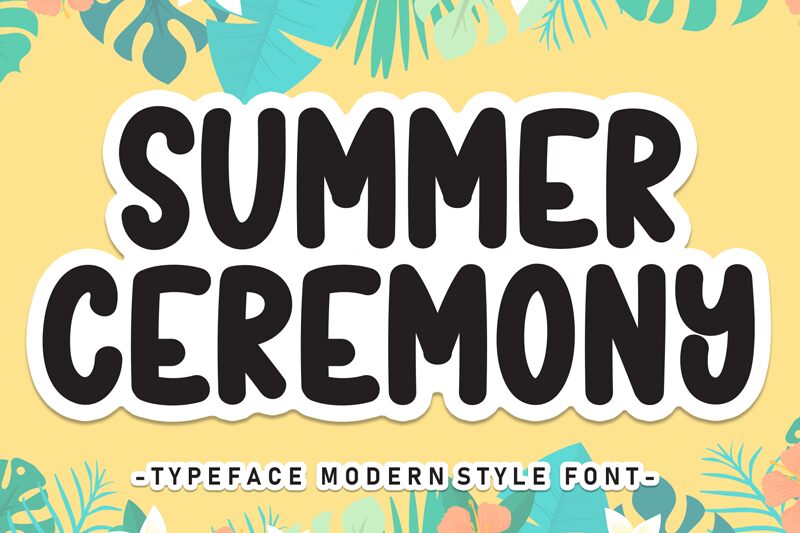
Summer Ceremony
Summer Ceremony font designed by Scratchones is a bold handwritten font with free-flowing elegant letters. The casual yet cheerful rounded style makes it look easy-to-read and feel friendly. In addition to letting you write in style, the font looks particularly beautiful in large display uses.
Among the latter, there are branding projects, product labels, packaging design, poster headers, invitations, cards of all kinds, flyers and advertisements. Use for online social media designs or traditional graphic designs to win attention quickly while maintaining readability and an aesthetic appeal.